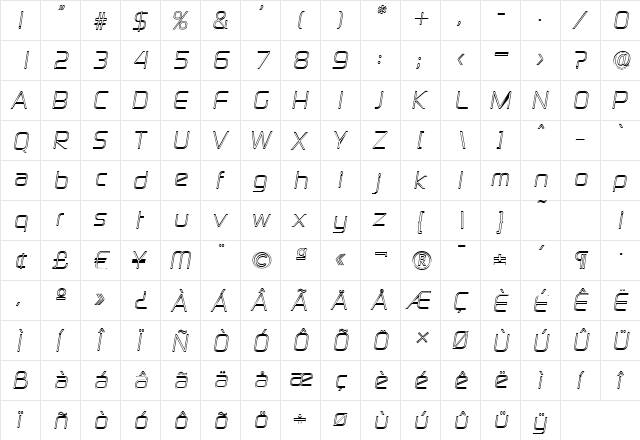
RandyBeckerOutline Italic
Design Context for RandyBeckerOutline Typeface
RandyBeckerOutline is built around its visual character rather than neutral utility — its distinctive forms are designed to make an impression at display sizes. Its italic angle brings a sense of urgency and motion to the letterforms.
Font Pairing: Pair with a clean neutral sans-serif for body copy to let RandyBeckerOutline's character lead without overwhelming the composition.
Pro Tip: Use RandyBeckerOutline exclusively at display sizes — it was designed to be seen, not read at length. Let a neutral companion handle body copy.